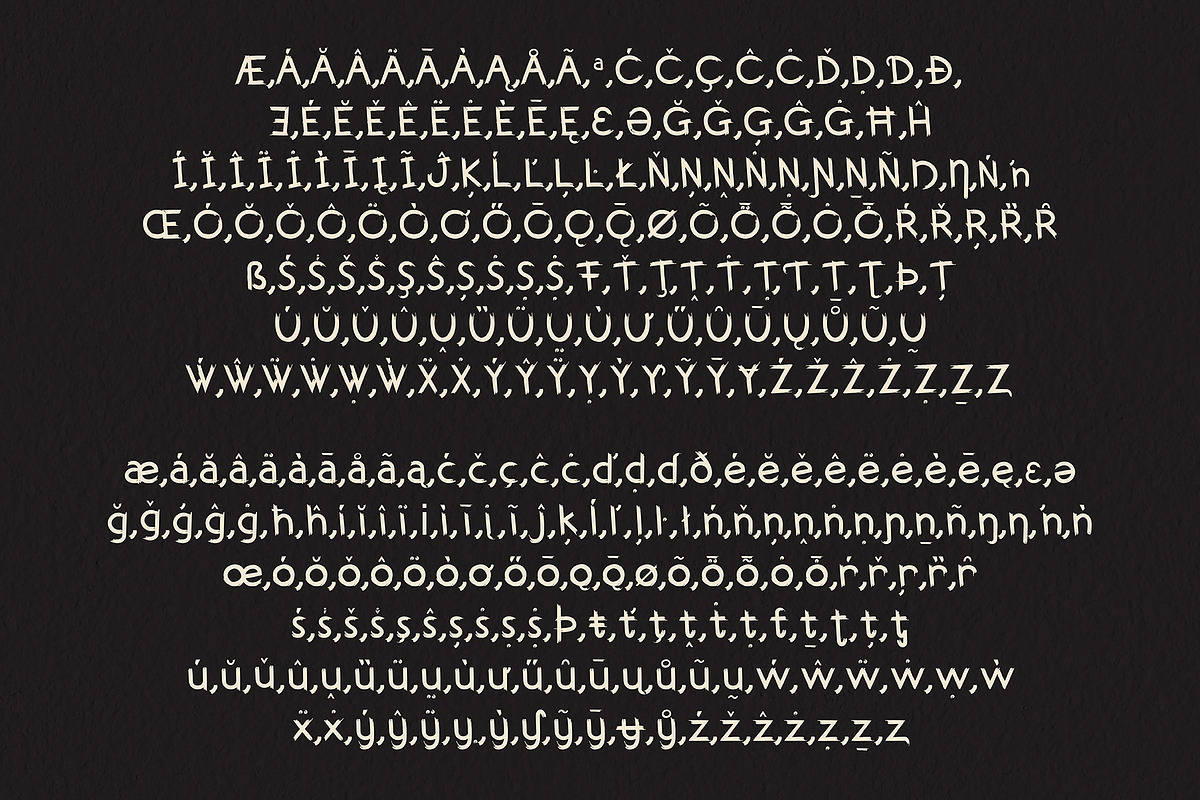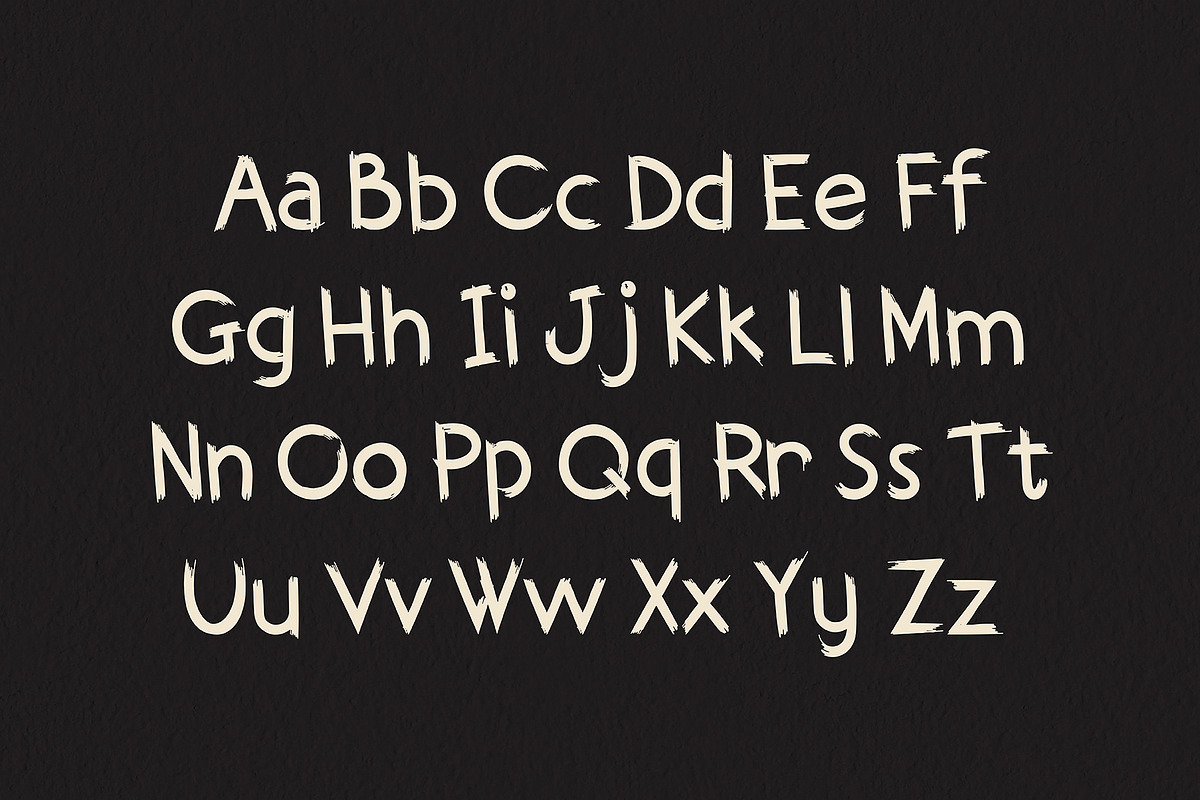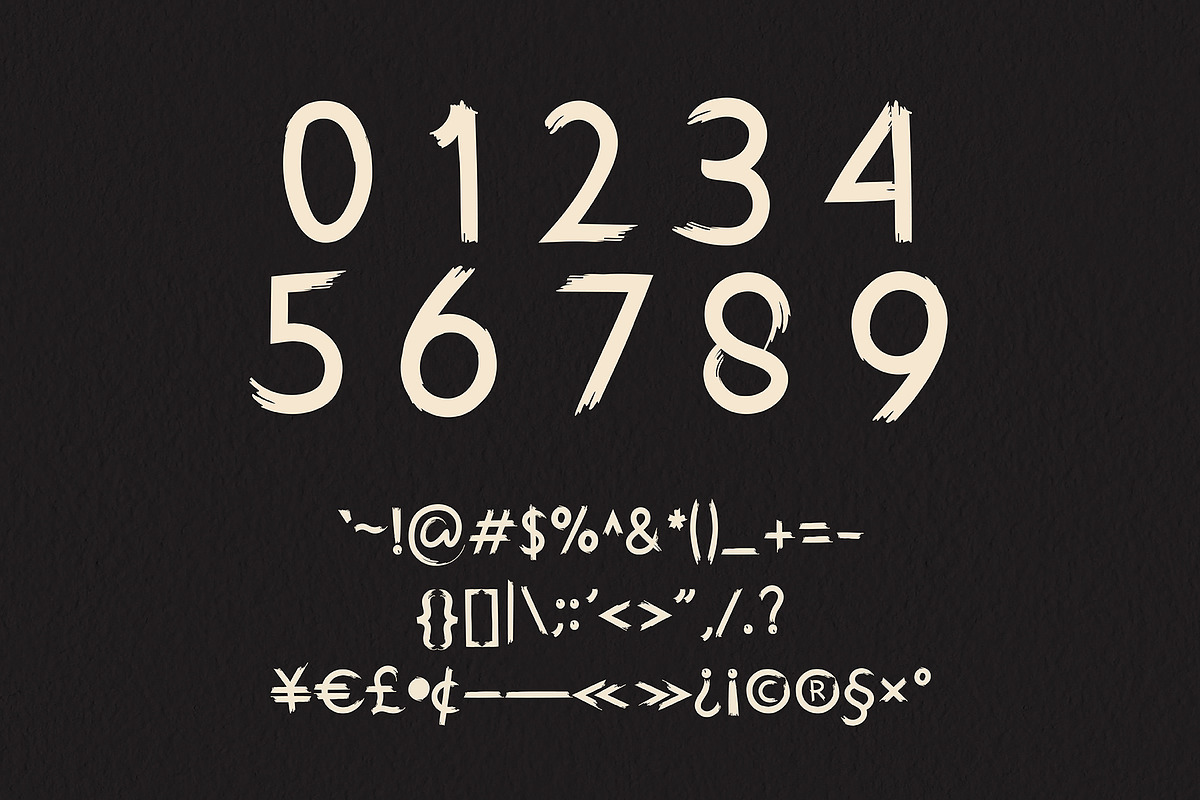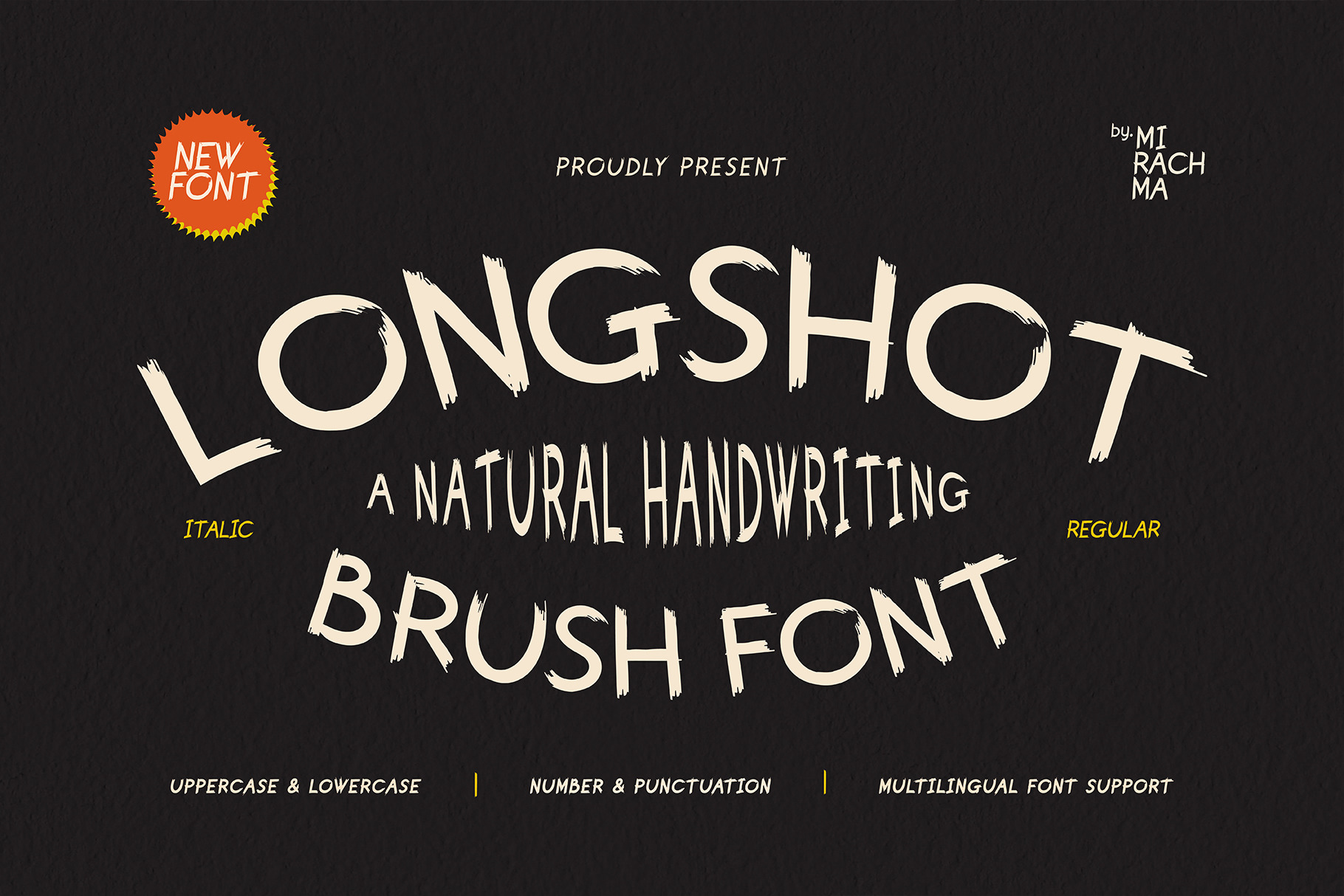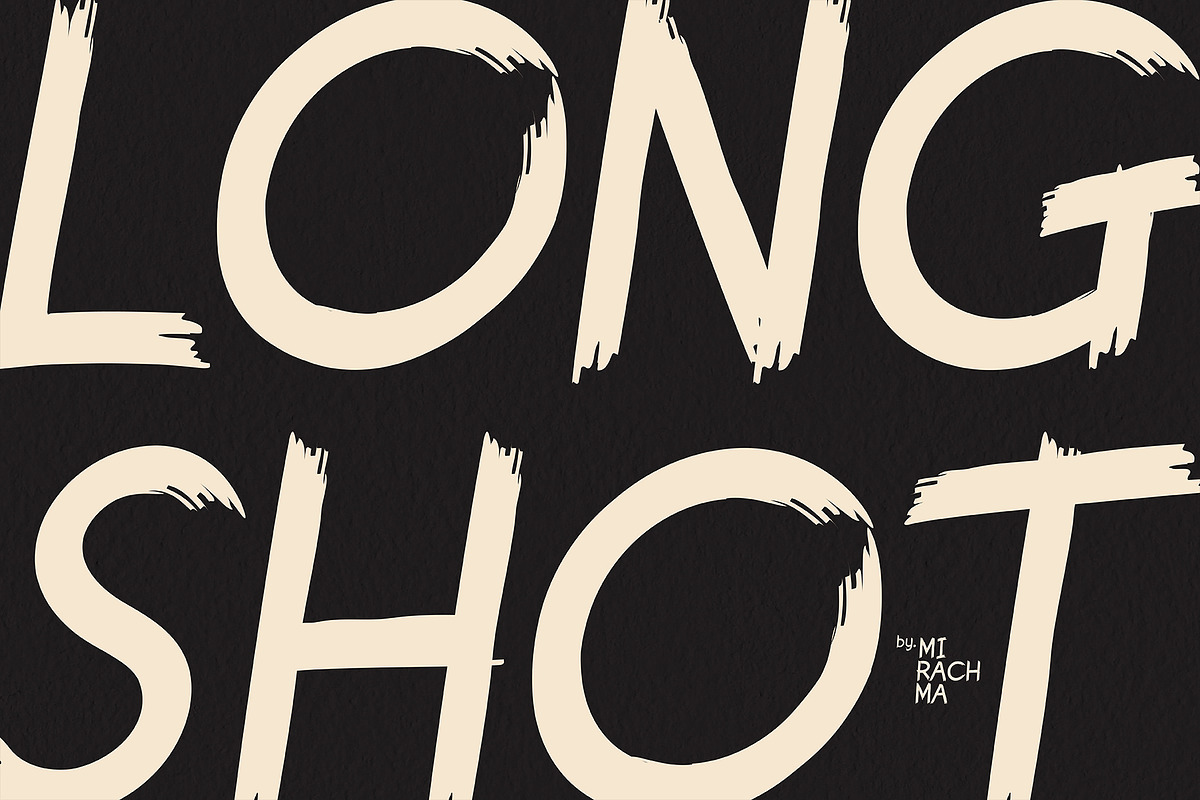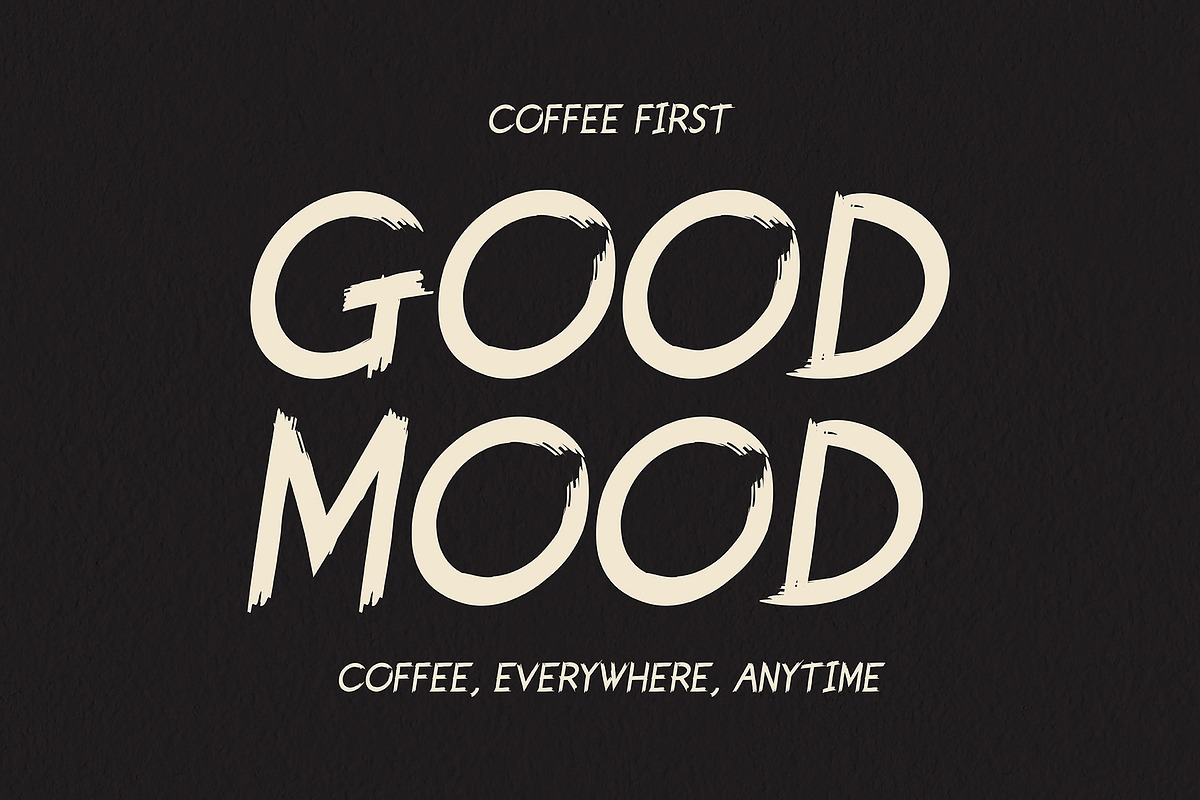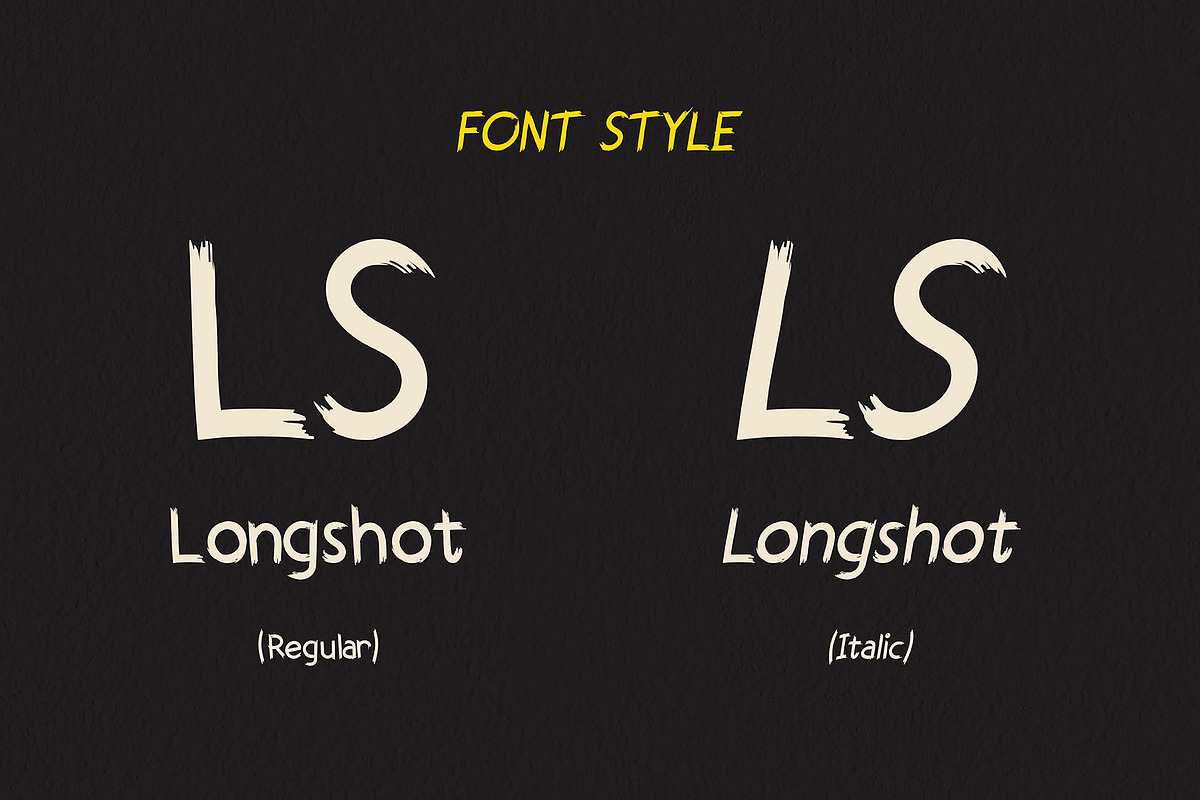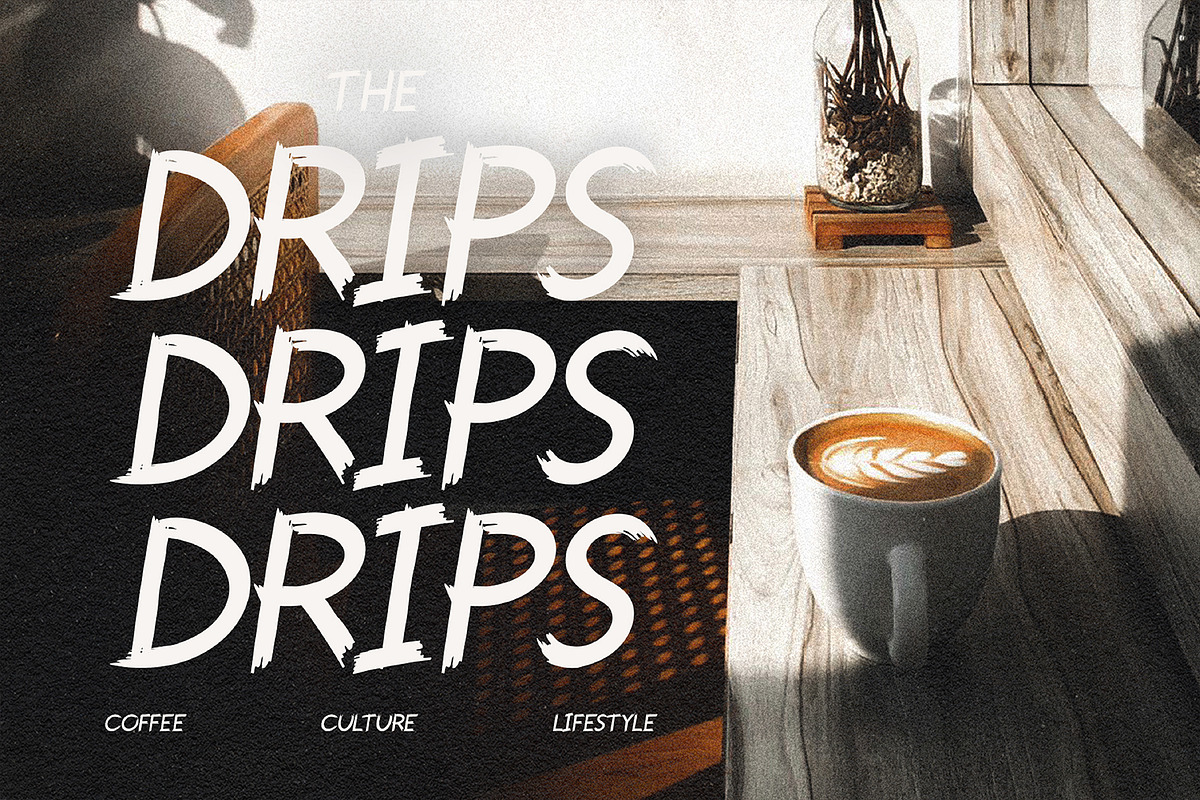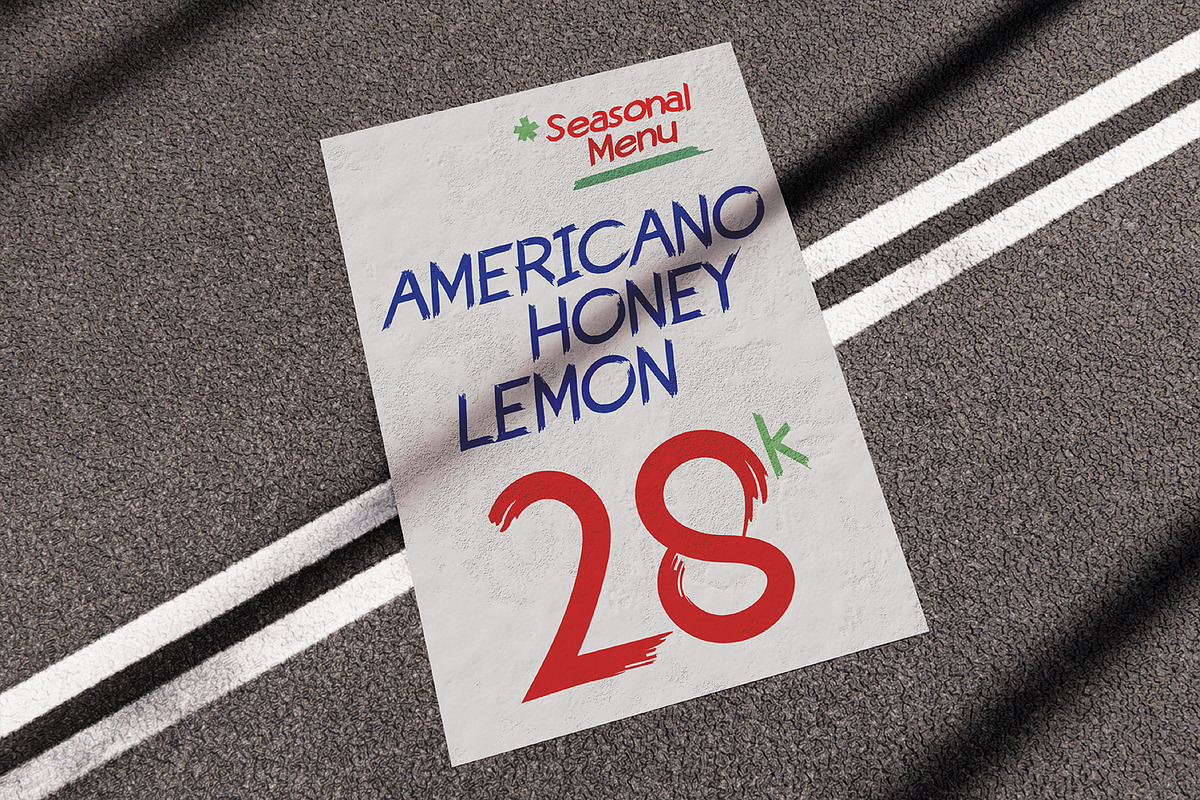
Long Shot - Brush Font
Introducing Long Shot, a brush font inspired by organic handwriting, embellished with authentic lines and brush textures. Designed to be timeless, subtle, yet bold. Long Shot leaves a strong impression. This font can easily enhance various design fields, including logos, posters, and unique gift labels. It is also suitable for use as a display font or for main text.
Font Family (Regular, Italic)
Multilingual Font Support
Uppercase & Lowercase Alphabets